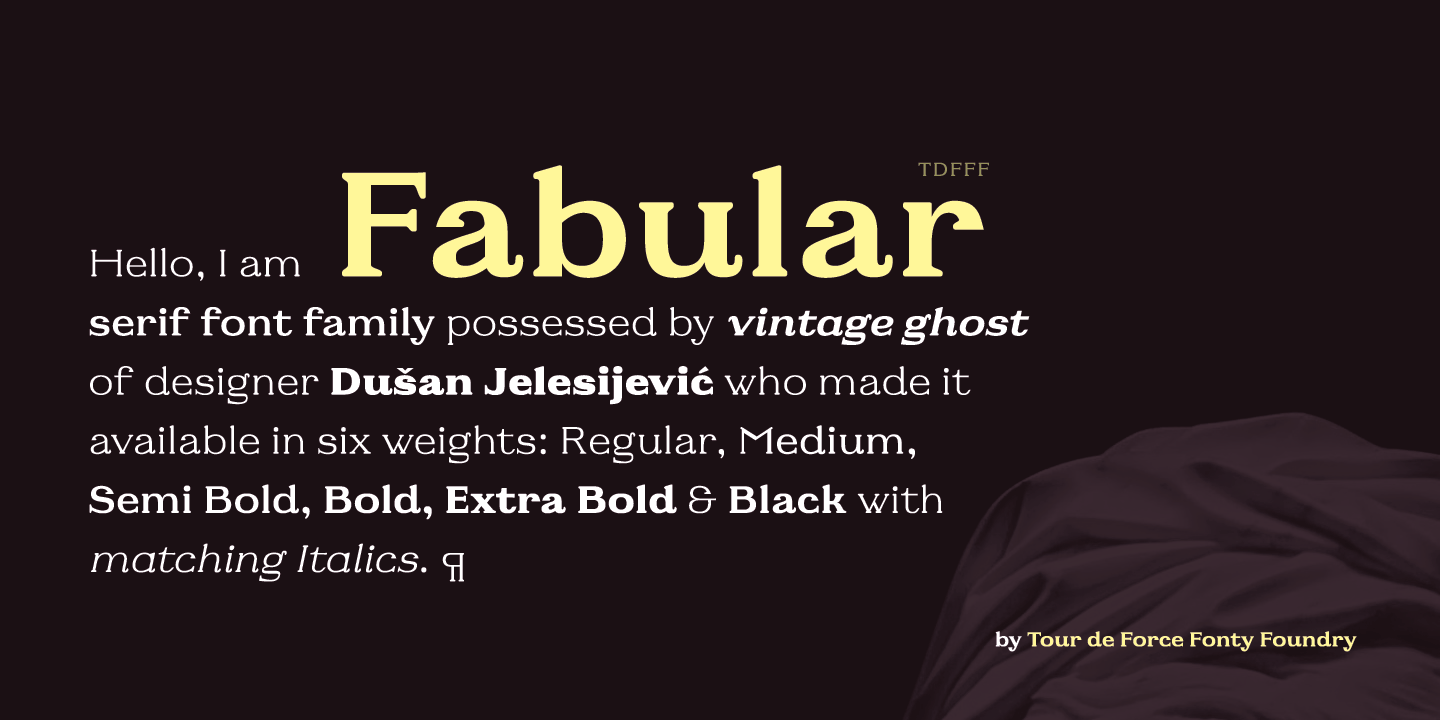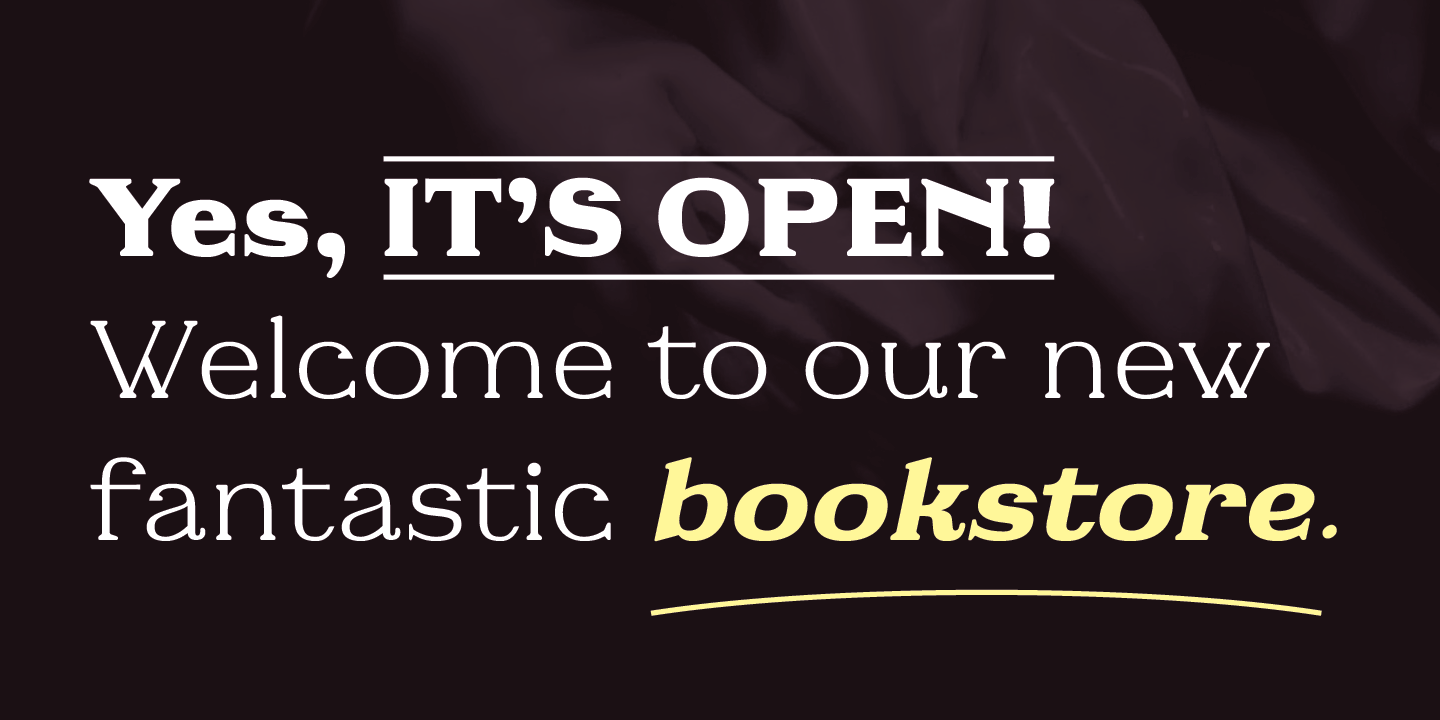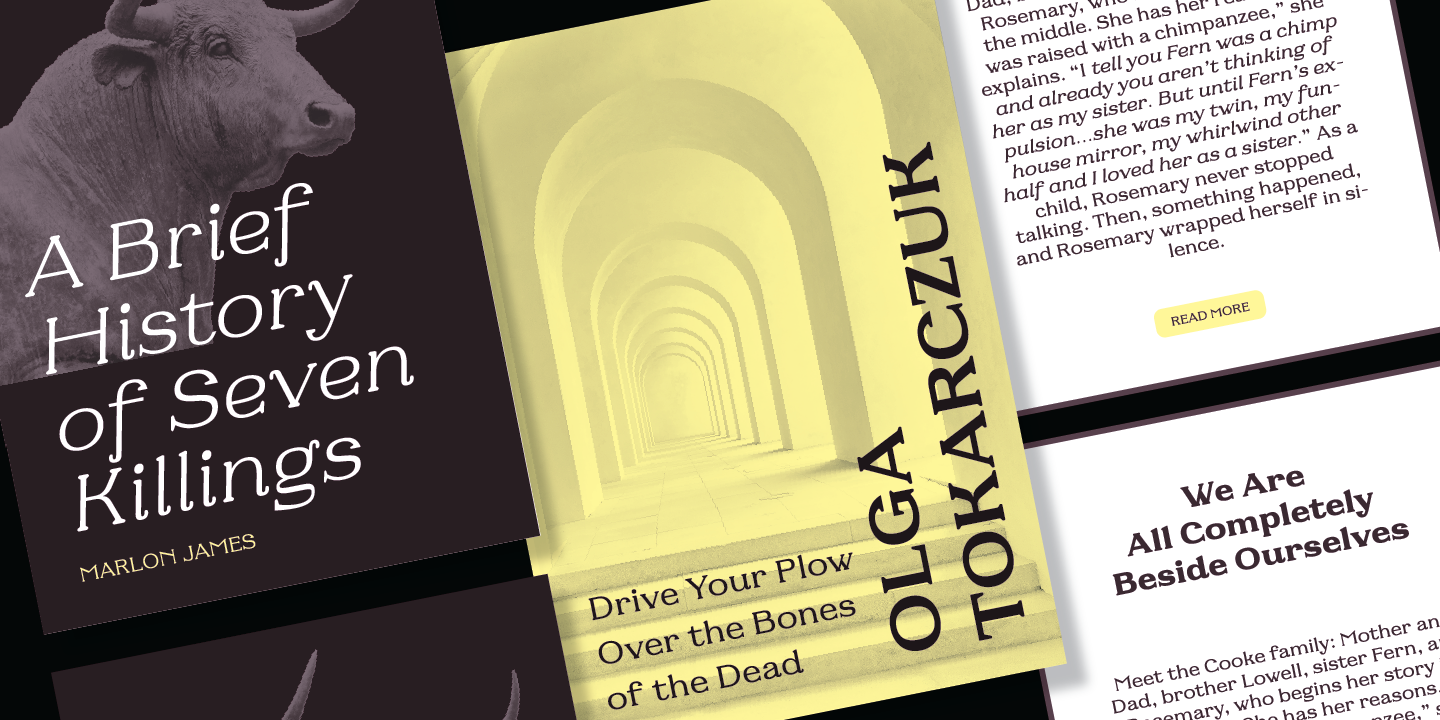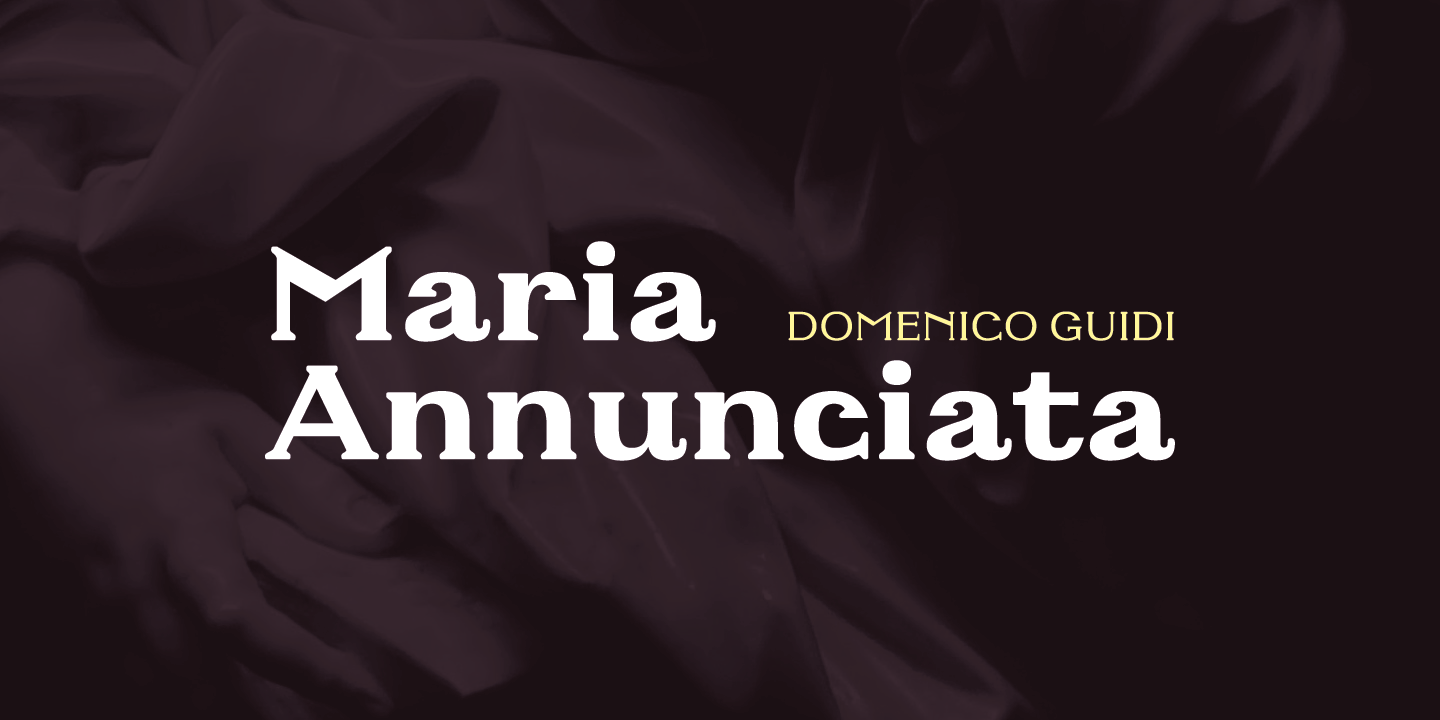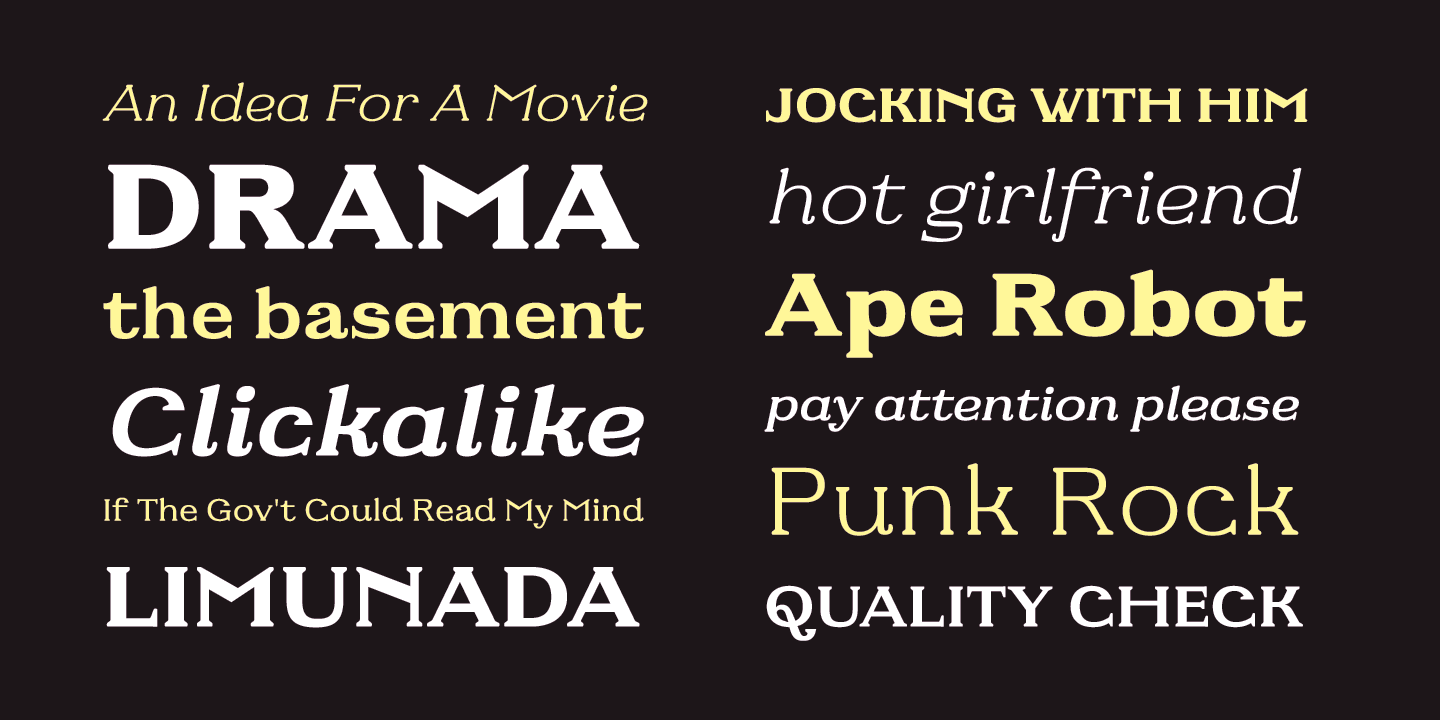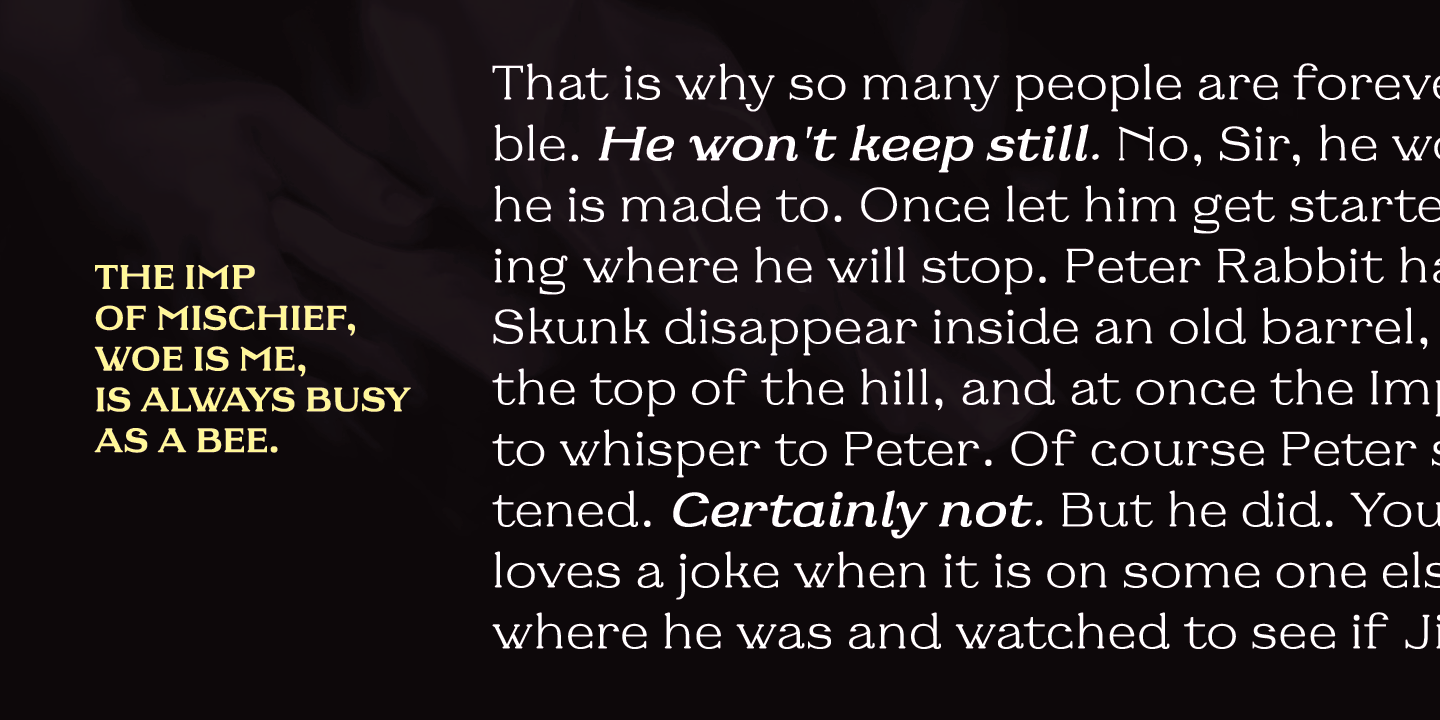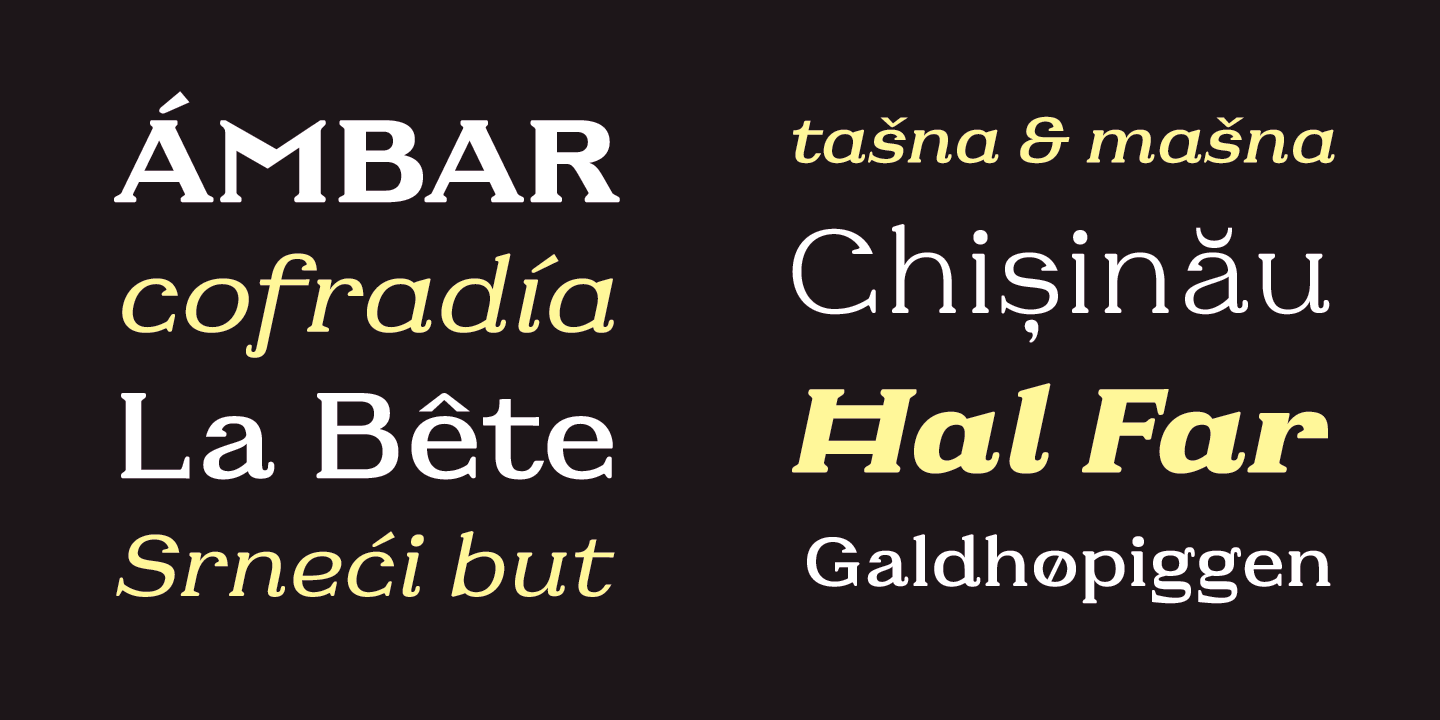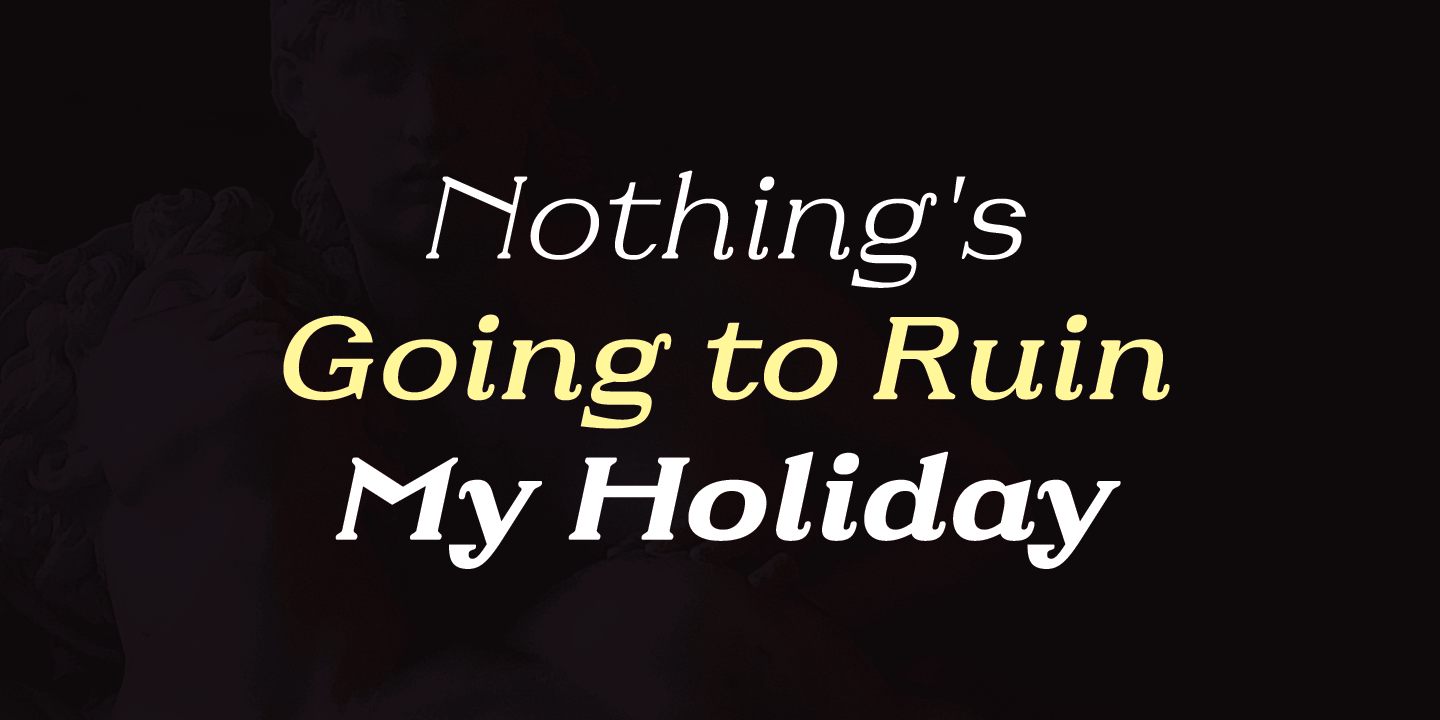
Fabular is our serif font family with 12 styles.
Fabular is our serif font family with 12 styles. Inspired by vintage typefaces, but designed for modern purposes, Fabular comes in 6 weights with matching Italics.
Short, thick and rounded serifs, spiced by specific terminal endings and finial bring gentle visual softness to Fabular's design. Tightly spaced by its serif's design, Fabular packs paragraph easily with great balance and rhythm within the sentences. It is decorative and serious font family at the same time which gives wide range of possibility for designers to use it: on posters, packages, labels, magazines, websites and many more situations.
Contains Fractions, Oldstyle Figures, Denominator and Numerator as OpenType features.